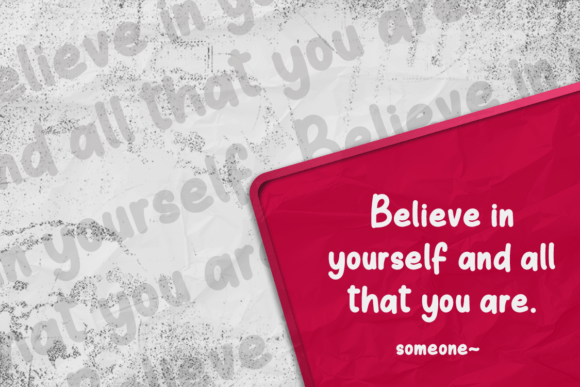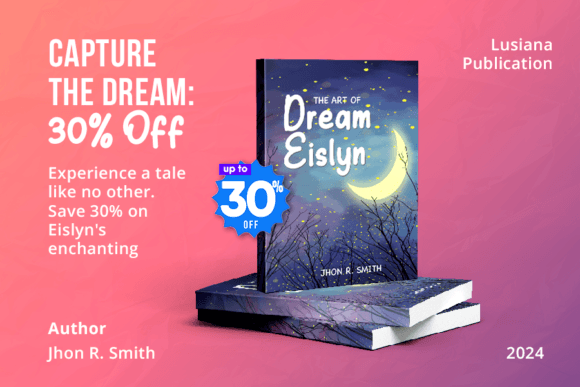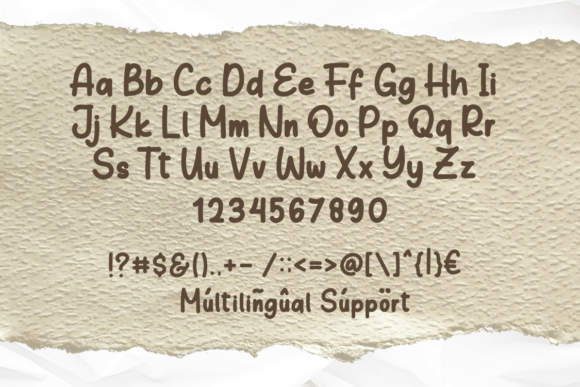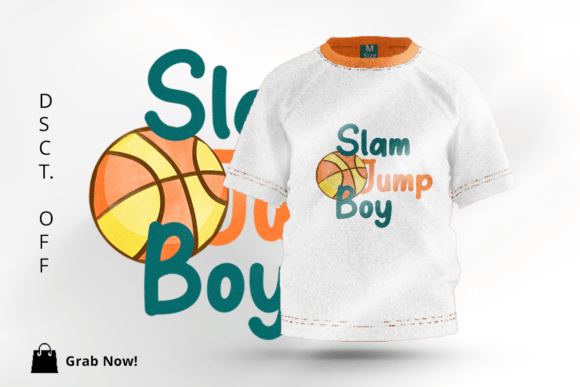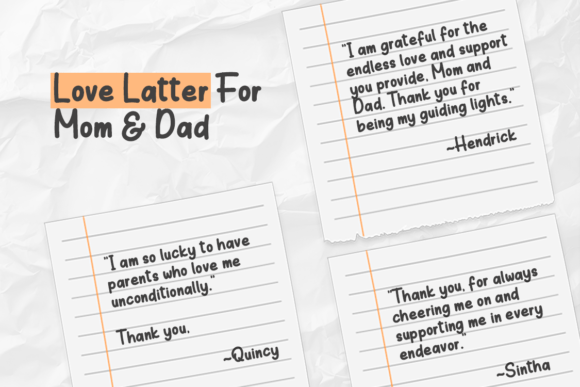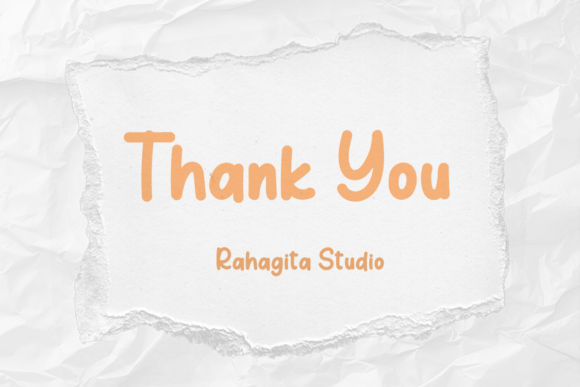
Add a Touch of Playfulness to Your Projects with Child Hood Font
Are you looking for a font that can bring a touch of playfulness and whimsy to your design projects? Look no further than Child Hood, a delightful handwritten typeface that’s perfect for book titles, logos, flyers, and branding. In this article, we’ll explore the features and benefits of Child Hood font, and show you how it can elevate your designs to the next level.
What is Child Hood Font?
Child Hood is a beautiful handwritten font that’s designed to bring a sense of nostalgia and playfulness to your designs. With its charming and whimsical feel, this font is perfect for projects that require a personal touch. Whether you’re designing a book cover, a logo, or a flyer, Child Hood font is sure to make your project stand out.
Key Features of Child Hood Font
So, what makes Child Hood font so special? Here are some of its key features:
- OpenType Support: Child Hood font features OpenType support, which means you can use it with any design software that supports OpenType fonts, including Adobe Creative Cloud applications.
- Multilingual Options: This font supports multiple languages, making it perfect for designers who work with clients from around the world.
- PUA Encoding: Child Hood font features PUA (Private Use Area) encoding, which allows you to access a wide range of glyphs and characters, including alternates and ligatures.
- Handwritten Style: The font’s handwritten style gives it a personal and playful feel that’s perfect for a wide range of design projects.
Benefits of Using Child Hood Font
So, why should you choose Child Hood font for your design projects? Here are just a few benefits:
- Easily Readable: Despite its playful feel, Child Hood font is highly readable, even at small sizes.
- Versatile: This font is perfect for a wide range of design projects, from book titles and logos to flyers and branding.
- Easy to Use: With OpenType support and PUA encoding, Child Hood font is easy to use, even for designers who are new to working with fonts.
- Unique and Eye-Catching: The font’s unique and whimsical feel makes it perfect for designers who want to create eye-catching and memorable designs.
How to Use Child Hood Font in Your Designs
Using Child Hood font in your designs is easy. Here are a few tips to get you started:
- Pair it with Other Fonts: Child Hood font pairs well with a wide range of other fonts, including sans-serif and serif fonts.
- Experiment with Different Sizes: Don’t be afraid to experiment with different font sizes to create visual interest and hierarchy in your designs.
- Use it for Headlines and Titles: Child Hood font is perfect for headlines and titles, where its playful feel can really shine.
- Add a Personal Touch: Use Child Hood font to add a personal touch to your designs, whether you’re creating a book cover or a logo.
Who is Child Hood Font for?
Child Hood font is perfect for a wide range of designers and crafters, including:
- Graphic Designers: Graphic designers who want to create eye-catching and memorable designs will love Child Hood font.
- Book Publishers: Child Hood font is perfect for book publishers who want to create beautiful and engaging book covers.
- Logo Designers: Logo designers who want to create unique and memorable logos will love Child Hood font.
- Crafters and Artists: Crafters and artists who want to add a personal touch to their projects will love Child Hood font.
In conclusion, Child Hood font is a delightful handwritten typeface that’s perfect for designers and crafters who want to add a touch of playfulness and whimsy to their projects. With its OpenType support, multilingual options, and PUA encoding, this font is easy to use and versatile. Whether you’re designing a book cover, a logo, or a flyer, Child Hood font is sure to bring a charming and whimsical feel to your designs.